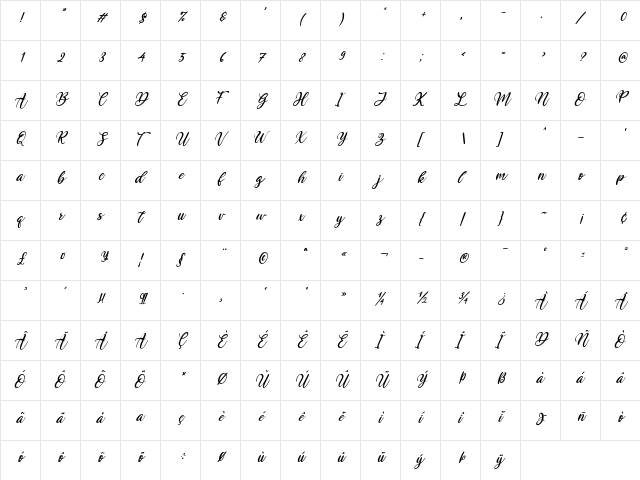
Butter Cookies Italic Regular
Design Context for Butter Cookies Italic Typeface
Butter Cookies Italic is a composed and adaptable typeface that performs quietly and consistently across a wide range of design contexts. Its italic angle brings a sense of urgency and motion to the letterforms.
Pro Tip: Try Butter Cookies Italic for annotation and caption copy alongside an upright companion — the contrast in angle creates a dynamic but ordered typographic system.